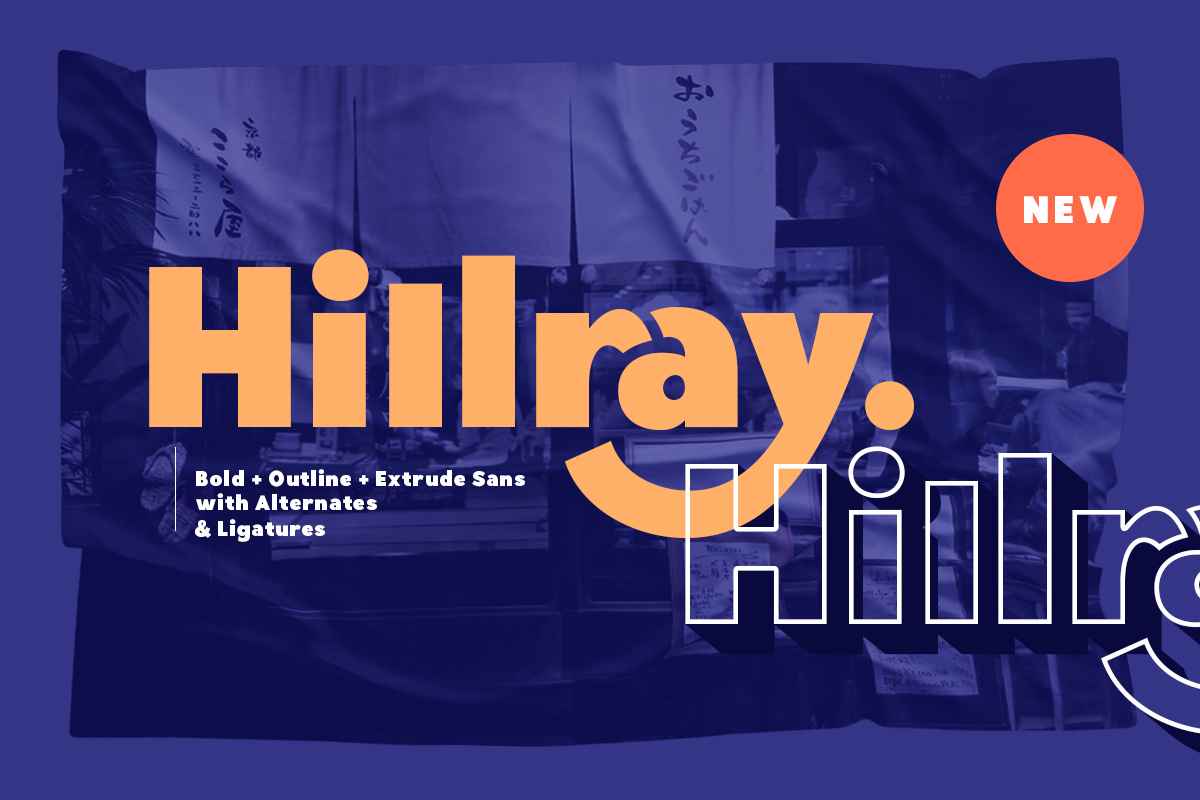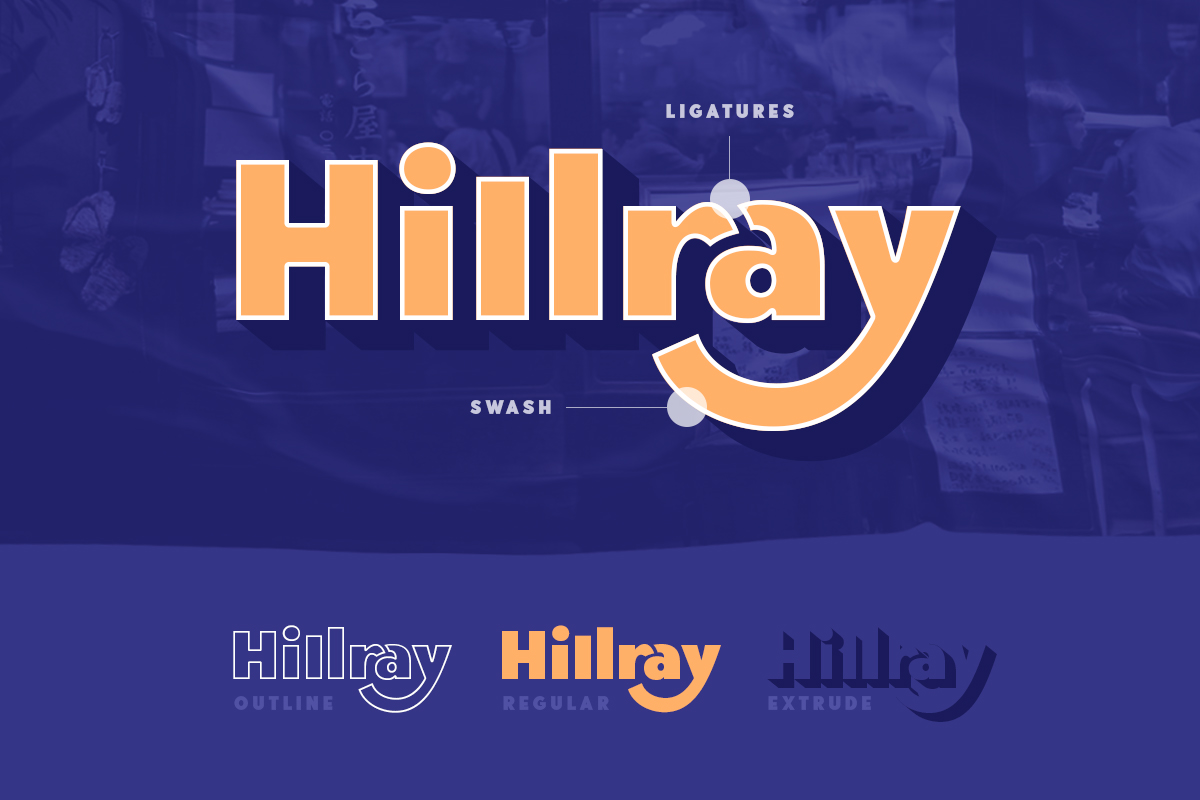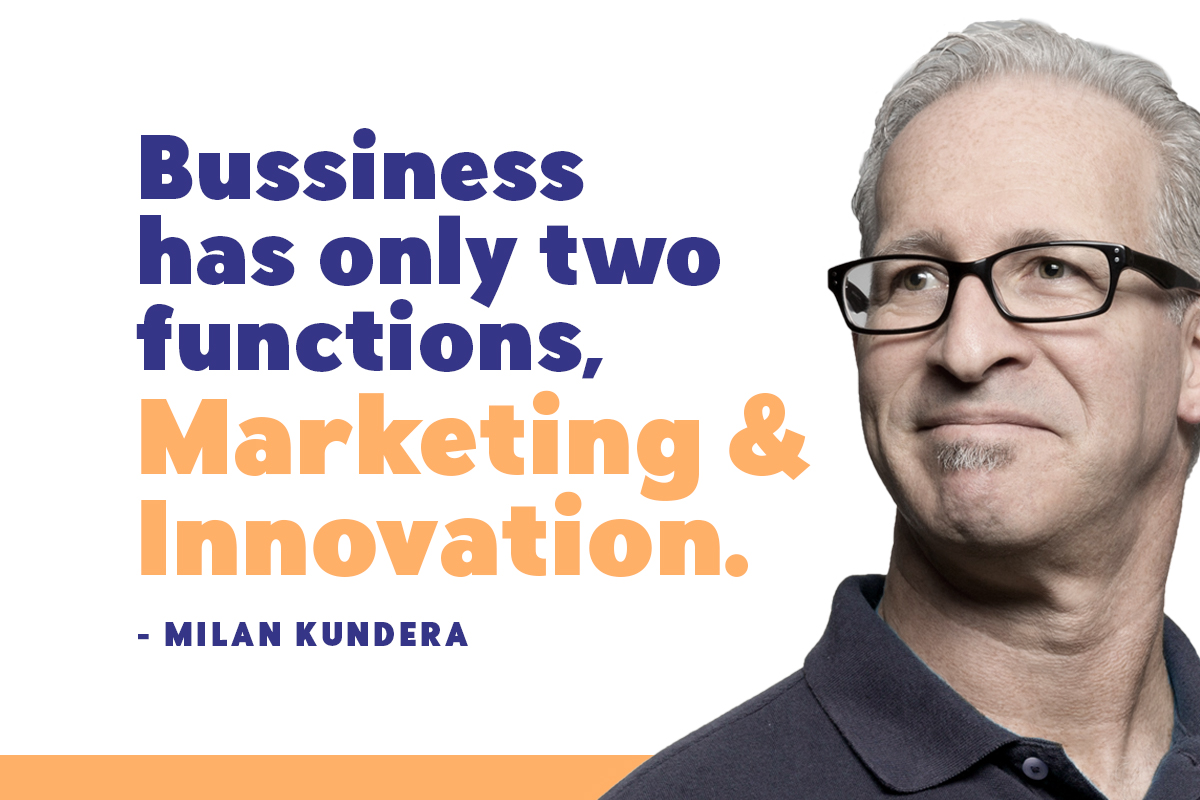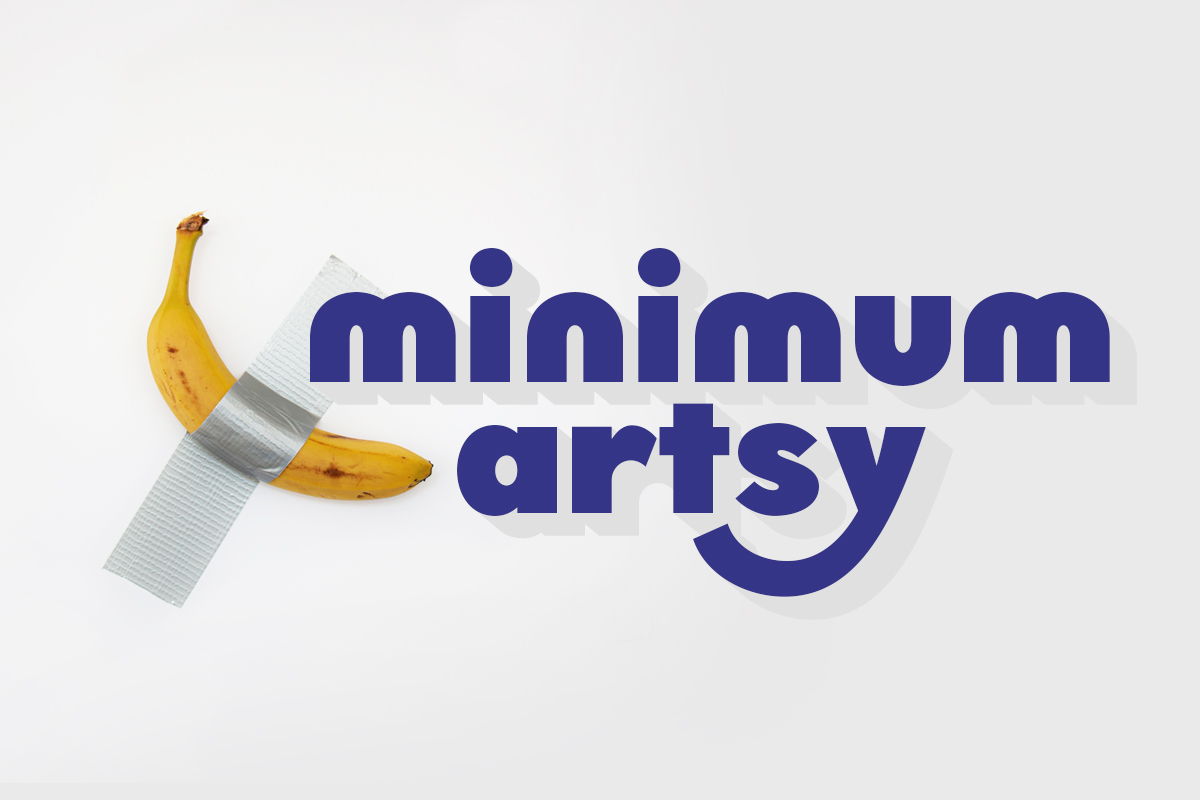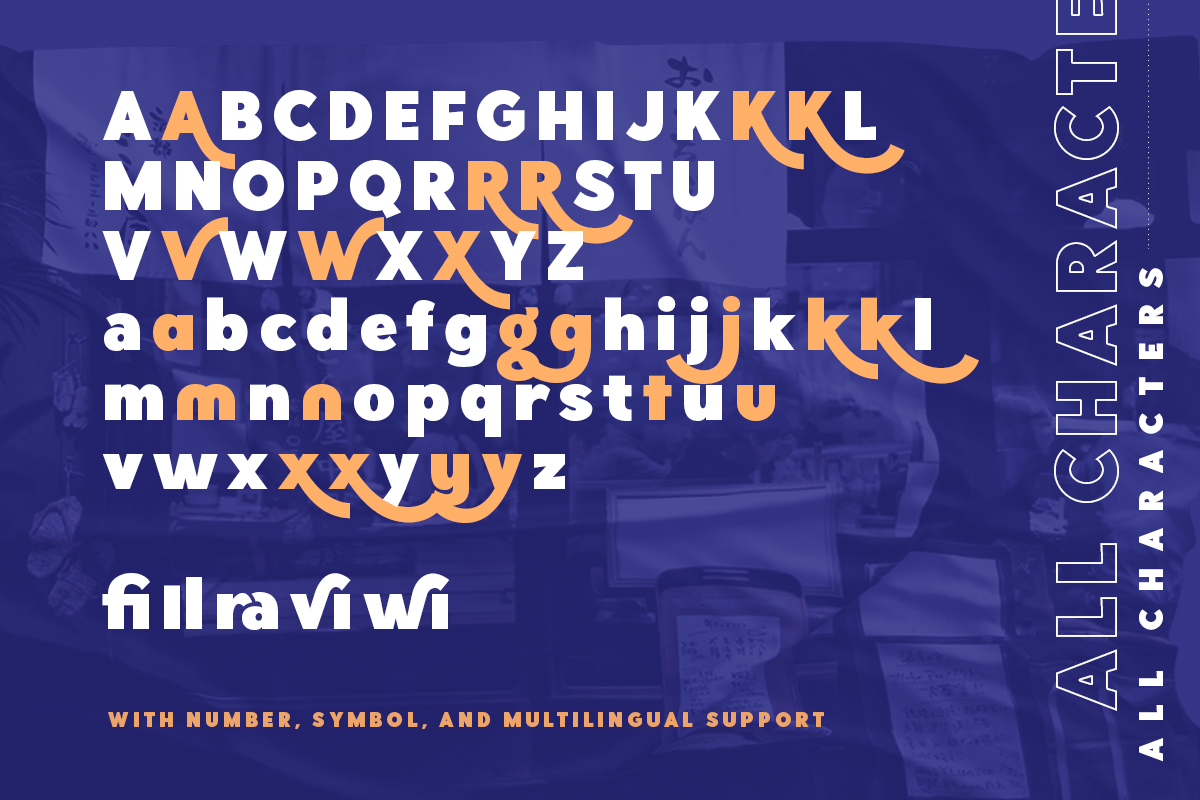
Hillray - Stylish Bold Sans
Hillray is a stylish bold sans that contains ligatures and alternates each characters! You can make a unique branding with this fonts. This stylish bold fonts also included extrude and outline style that will compliments the regular style! This fonts suitable to use for poster, branding, merchandise, and any street art style! Also support multilingual and already PUA Encoded!